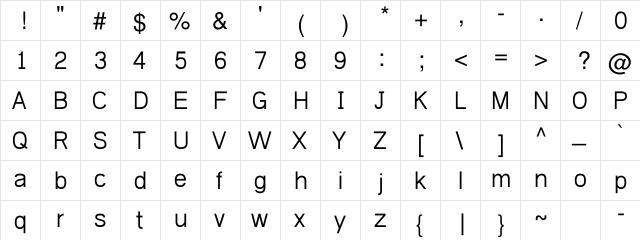
Kh Kangrey Regular
| Foundry | Danh Hong |
| Designer | Danh Hong - 2008 |
Design Context for Kh Kangrey Typeface
Kh Kangrey offers clean, dependable letterforms without strong stylistic allegiance, making it a practical choice for designers who need flexibility.